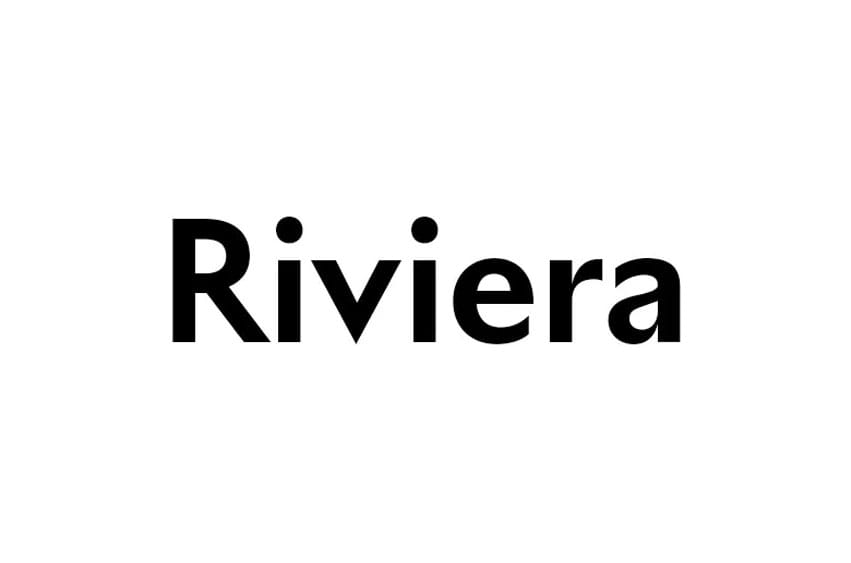
Riviera Sans Font is a real time traveler bringing traditional typography with contemporary design aesthetics. Originating from England, this old humanist sans serif typeface has been carefully reimagined by Swiss Typefaces for modern designs. The high-centered M and the bold vertical strokes found in letters a, c and e remain intact.
It showcases the effortless beauty often compared with the shores of lake Leman. Unique details like the modulated joins in letters such as b, d, p, q, m, n and u add character while the thoughtfully regulated widths create visual harmony.